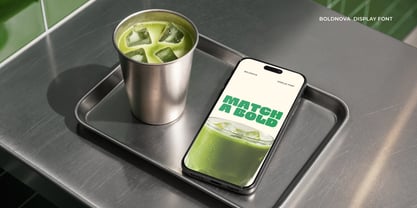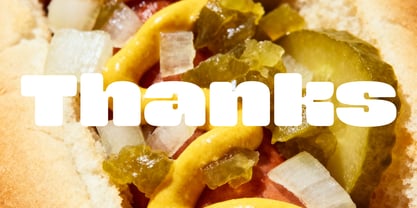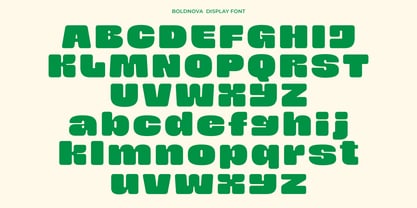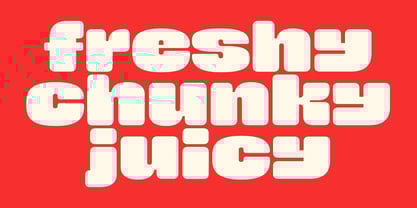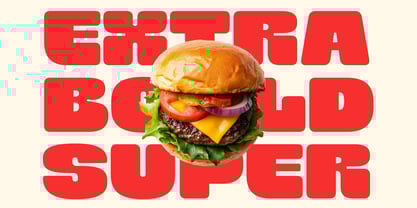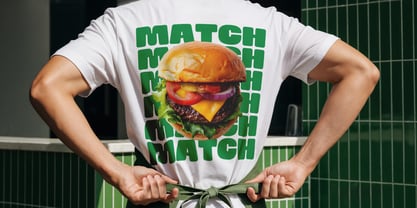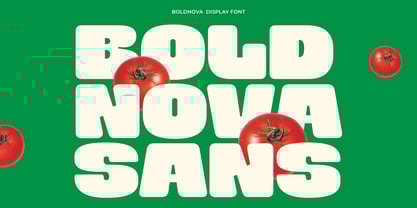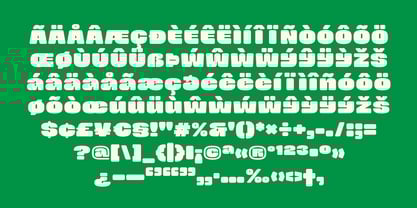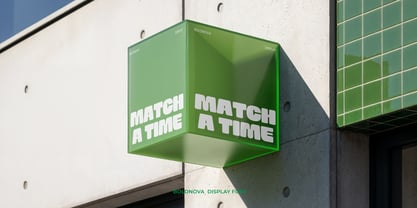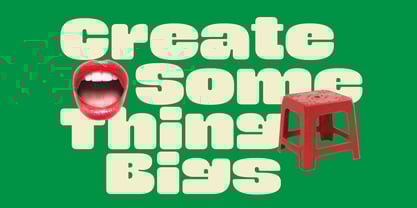
Boldnova
by limitype
The Boldnova Font Family was designed by Muhammad Muammar, Furqan Sudirman and published by limitype. Boldnova contains 1 styles. More about this family
Boldnova is an extra bold rounded font with a lively retro vibe. Its smooth yet solid curves give off a friendly and confident feel. Perfect for headline, posters, logo, magazine, food branding, and product packaging, this font brings a warm and memorable touch to any design. Boldnova available with: - Uppercase - Lowercase - Number - Symbol - Multilingual
Designers: Muhammad Muammar, Furqan Sudirman
Foundry: limitype